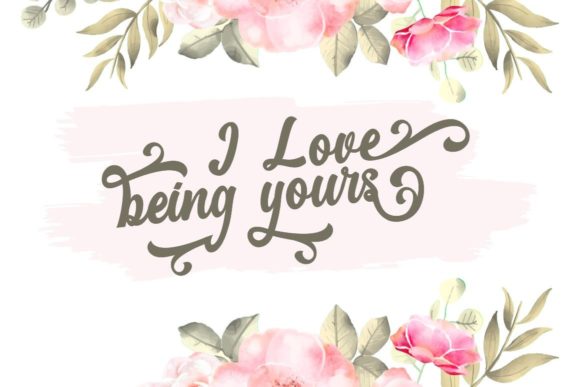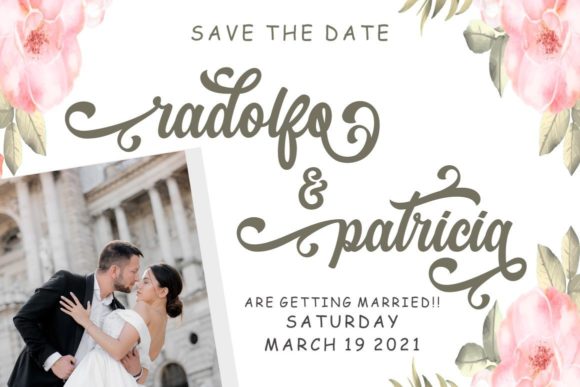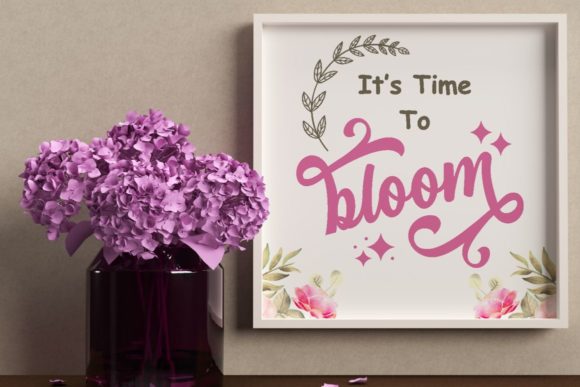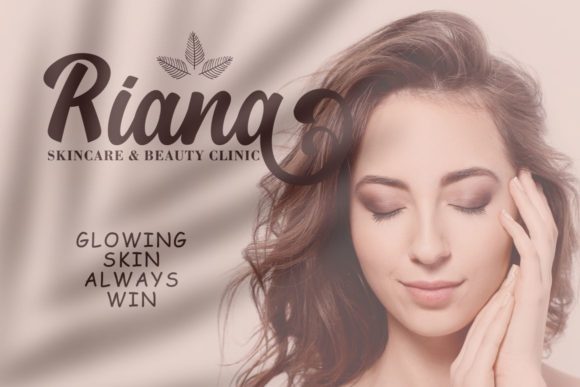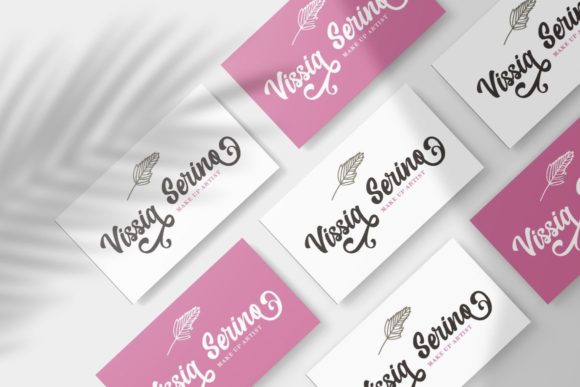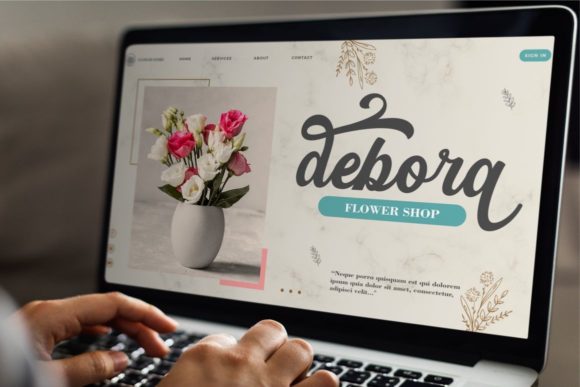
Dream Flourish Font: Elevate Your Designs with Elegance and Magic
In the world of typography, a font can make or break a design. For crafters, designers, and artists, finding the perfect script font that adds a touch of elegance and whimsy can be a daunting task. However, with the introduction of Dream Flourish Font, your search is over. This magical script font is carefully crafted to bring a dash of sophistication and charm to your projects, making it a must-have for anyone looking to elevate their designs.
The Charm of Dream Flourish Font
Dream Flourish Font is more than just a beautiful script font; it’s an experience. With its elegant strokes and flowing curves, this font is designed to add a touch of magic to your designs. Whether you’re working on a branding project, crafting a handmade product, or creating digital content, Dream Flourish Font is the perfect companion. Its versatility and charm make it suitable for a wide range of applications, from wedding stationery to packaging design, and from social media graphics to blog headers.
One of the standout features of Dream Flourish Font is its PUA (Private Use Area) encoding. This means that accessing all the glyphs and swashes is incredibly easy. With PUA encoding, you can effortlessly navigate through the font’s extensive library of characters, ligatures, and decorative elements. This feature is particularly useful for designers and crafters who want to add a personal touch to their work without getting bogged down in complicated font management.
Why Choose Dream Flourish Font?
So, what sets Dream Flourish Font apart from other script fonts on the market? Here are just a few reasons why designers and crafters are falling in love with this magical font:
- Elegance and Sophistication: Dream Flourish Font exudes elegance and sophistication, making it perfect for high-end designs and luxury brands.
- Versatility: With its wide range of glyphs, swashes, and ligatures, this font can be used for a variety of projects, from digital content to print materials.
- Easy to Use: PUA encoding makes it easy to access and use the font’s features, even for those with limited design experience.
- Unique and Eye-Catching: Dream Flourish Font is sure to grab attention and leave a lasting impression on your audience.
Using Dream Flourish Font in Your Designs
So, how can you incorporate Dream Flourish Font into your designs? Here are a few ideas to get you started:
- Branding and Logo Design: Use Dream Flourish Font to create a stunning logo or brand identity that exudes elegance and sophistication.
- Wedding and Event Stationery: Add a touch of magic to your wedding invitations, save-the-dates, and other event stationery with this beautiful script font.
- Digital Content: Use Dream Flourish Font to create eye-catching social media graphics, blog headers, and other digital content that stands out from the crowd.
- Packaging Design: Elevate your packaging design with Dream Flourish Font, perfect for luxury brands and high-end products.
In conclusion, Dream Flourish Font is a game-changer for designers and crafters looking to add a touch of elegance and magic to their work. With its PUA encoding, ease of use, and stunning design, this font is sure to become a favorite in your design arsenal. Whether you’re working on a branding project, crafting handmade products, or creating digital content, Dream Flourish Font is the perfect companion to help you bring your vision to life.